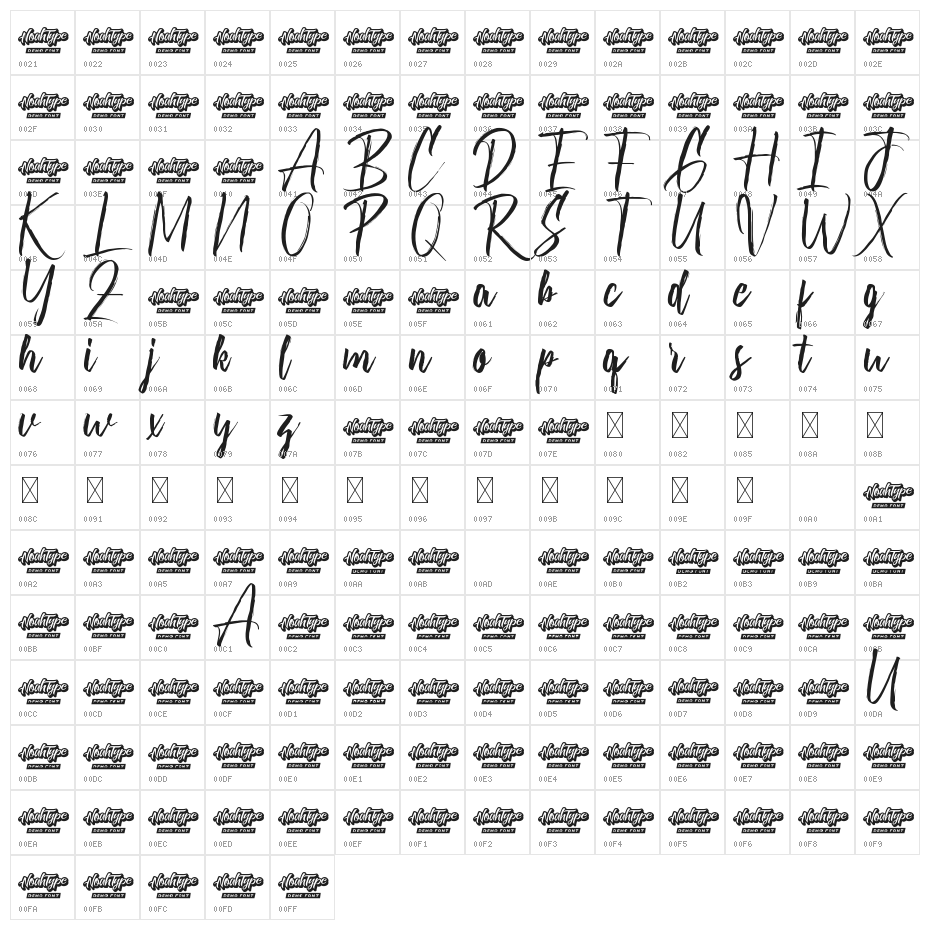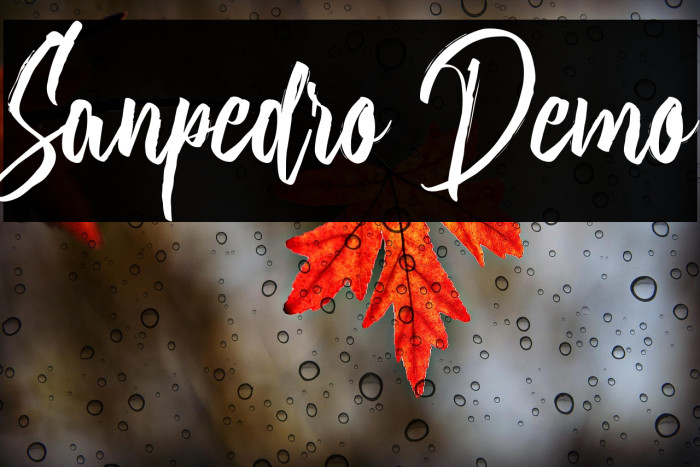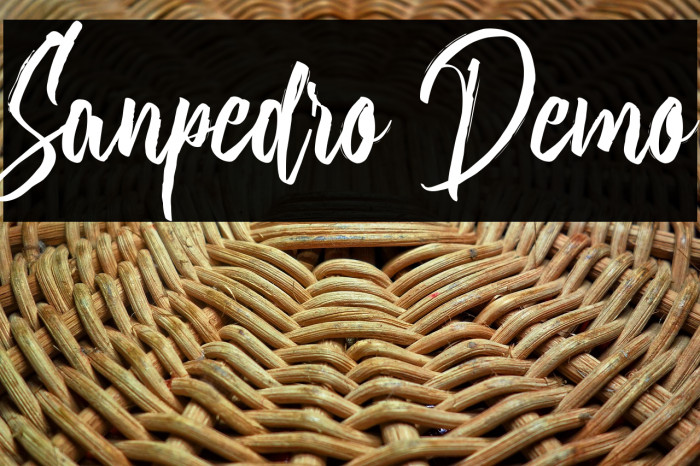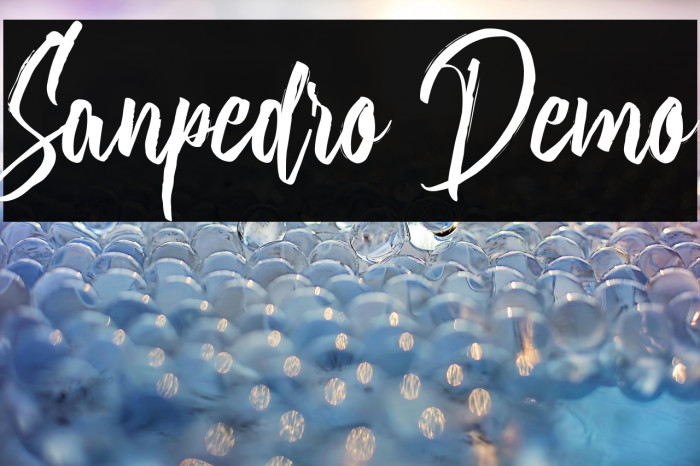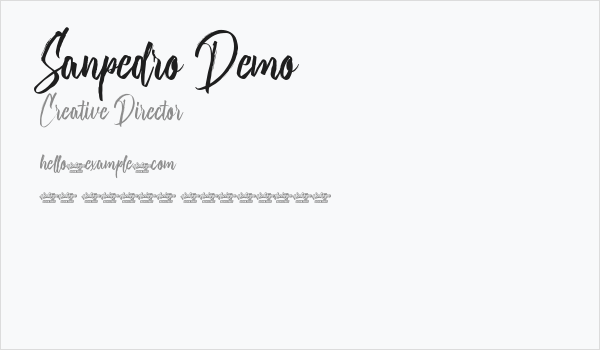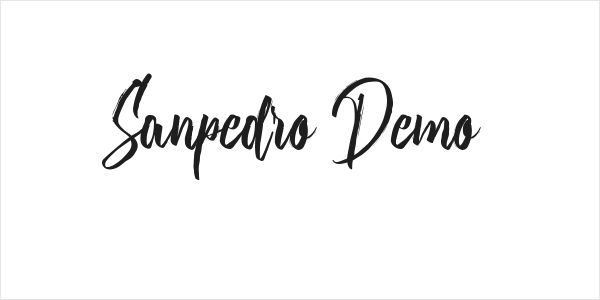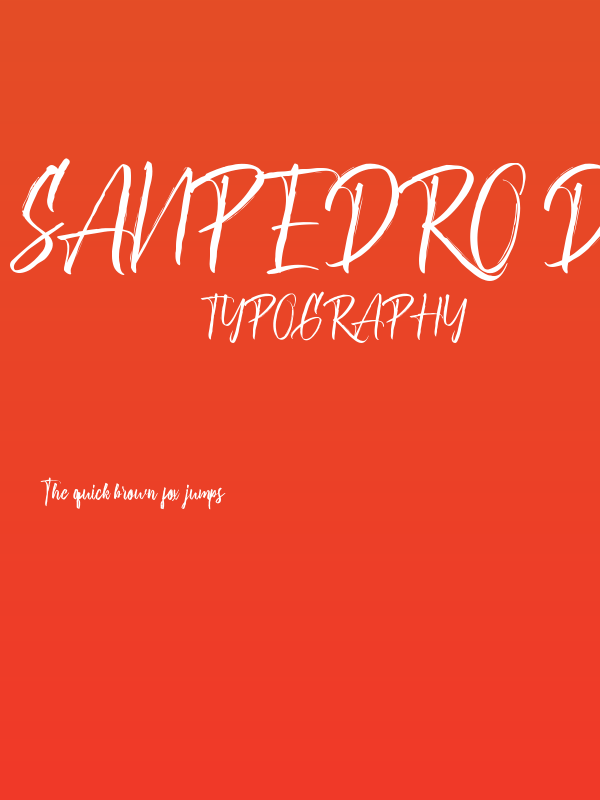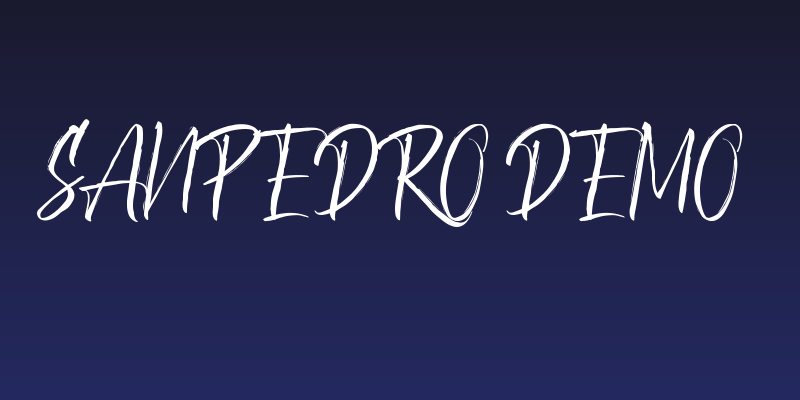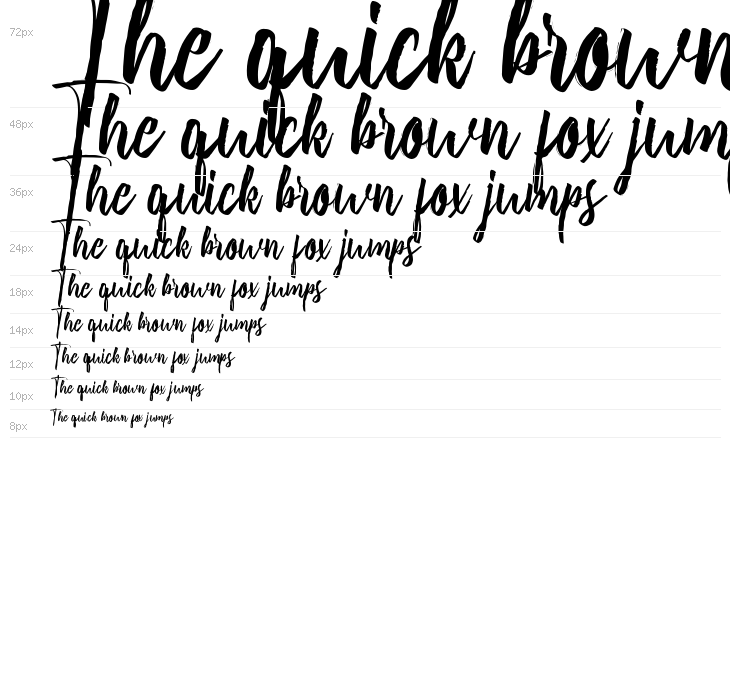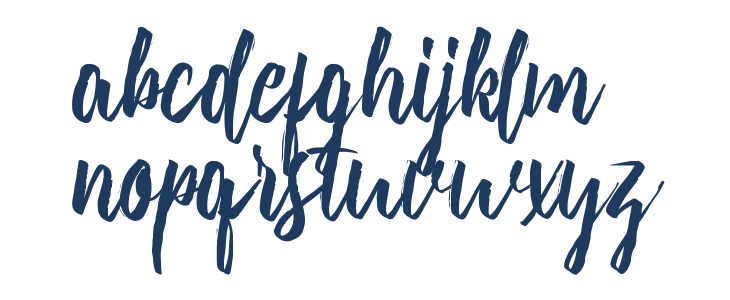
Sanpedro Demo Font
Sanpedro Demo Description
This font features a dynamic and expressive script style with a handwritten appearance. The uppercase letters are tall and slender, with a slight slant that adds a sense of movement and elegance. The lowercase characters are more fluid, with varying stroke widths that create a lively and artistic feel. The overall design is reminiscent of calligraphy, with smooth curves and flowing lines. The font maintains a consistent baseline, while the ascenders and descenders add a touch of sophistication. It is well-suited for creative projects that require a personal and artistic touch.